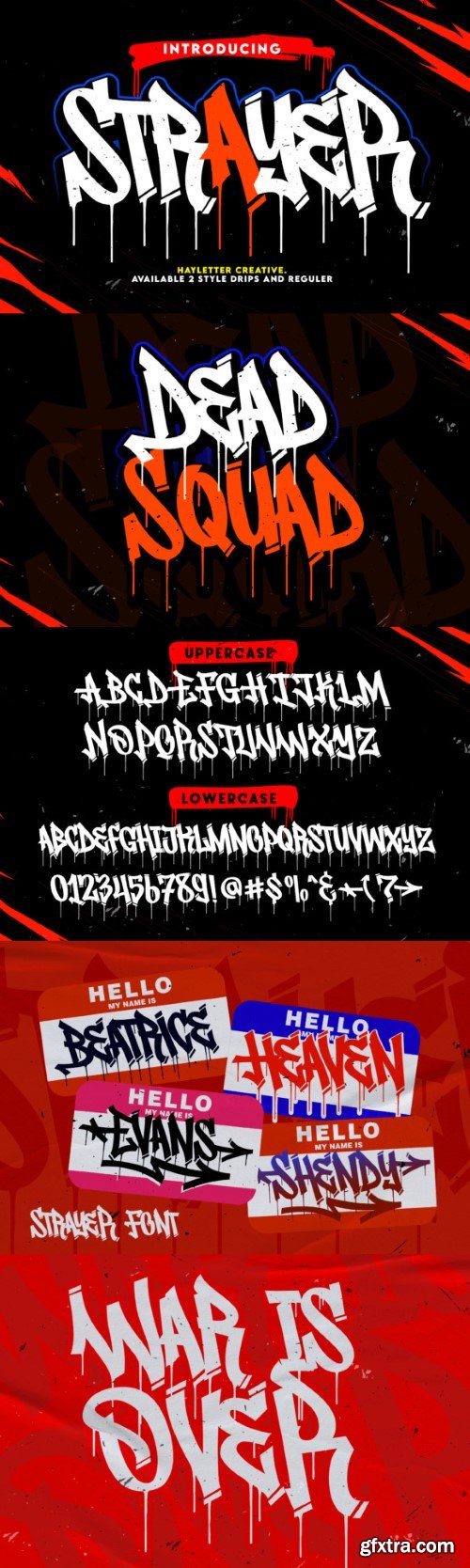
史莱特字体
Strayer Font
Inspired by the street graffiti marker paint drips with sharp shapes, this Graffiti-style display font will add a touch of confidence to any design!